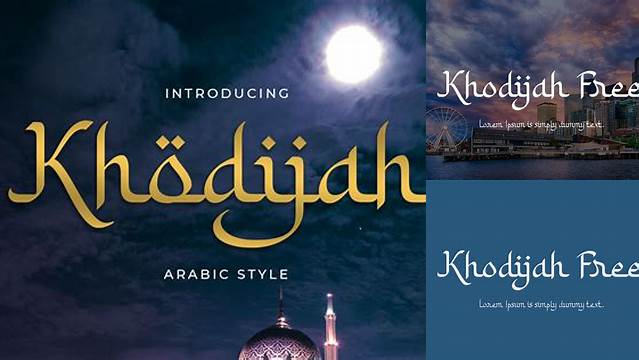
Hey guys! If you're looking for a beautiful and versatile Arabic font, you've probably stumbled upon the Khodijah Arabic Font. And the best part? You can often find a Khodijah Arabic Font free download! This comprehensive guide will walk you through everything you need to know about this elegant typeface, including where to find it, how to install it, and how to use it to create stunning designs. Let's dive in!
H2: Discovering the Allure of Khodijah Arabic Font
Khodijah Arabic Font, with its graceful curves and balanced design, is more than just a typeface; it's a work of art. It’s designed to capture the essence of Arabic calligraphy while maintaining readability in the digital age. Its popularity stems from its ability to blend tradition with modernity, making it ideal for various design projects. Khodijah Arabic Font free download options are readily available, making this beautiful font accessible to everyone, from seasoned designers to enthusiastic beginners. The font's unique character set provides a distinctive visual appeal, setting it apart from generic Arabic fonts. This makes it perfect for projects where you want to add a touch of elegance and cultural richness. The versatility of Khodijah allows it to be used in a wide range of applications, from branding and marketing materials to social media graphics and personal projects. Its adaptability makes it an excellent choice for those looking to enhance the visual impact of their work. Consider the impact a well-chosen font can have; it immediately sets a tone and conveys a message. Khodijah Arabic Font is not just functional, it tells a story through its form. Many designers choose it specifically to connect with audiences that appreciate the beauty of Arabic script. Finding a Khodijah Arabic Font free download is simple; it is a fantastic way to add a layer of sophistication to your design endeavors. It’s all about the details, and this font offers plenty of them. Embrace the beauty and consider adding this amazing font to your creative toolkit. This font can become a staple in your library due to its artistic flair. In addition to its aesthetic appeal, the font has great functional qualities. Its legibility and the various weights and styles available enhance the overall user experience. It’s an investment in your designs, helping them stand out and become more memorable. It’s the perfect solution for both professional and personal projects, giving you a touch of class whenever you need it. You'll find yourself drawn to this font’s timeless design, which is certain to impress anyone who encounters it.
H2: Utilizing Khodijah Arabic Font in Your Design Projects
Once you've got your Khodijah Arabic Font free download and installed it, the real fun begins – using it! This font is incredibly versatile, lending itself well to a variety of design projects. It is perfect for branding and logo design. The graceful curves and unique character shapes make it ideal for creating a memorable brand identity. Use it for headlines and titles in your marketing materials. The font's elegance will draw the reader's eye and create a lasting impression. Employ it for social media graphics, adding a touch of cultural richness to your posts. Create beautiful invitations and greeting cards with this font. It is perfect for weddings, Eid celebrations, or any event where a touch of beauty is needed. Experiment with different weights and styles to achieve the desired effect. The font often comes in various weights (light, regular, bold) and sometimes with additional styles. Use the different versions of the font according to your specific design needs. Combine it with other fonts to add variety. You can pair the Arabic font with a complementary sans-serif or serif font for body text. Always consider the context of your design and the message you want to convey. Khodijah Arabic Font is a beautiful choice, but its use will depend on what you want to express. Ensure the font is legible at various sizes. Test the font in different sizes to ensure it remains clear and readable, especially for smaller text. Avoid overuse. While the font is beautiful, using it sparingly can make it more impactful. The font is not just visually appealing; it’s also a great way to honor Arabic culture and create a sense of connection with your audience. Make your design projects stand out from the crowd! The font will add a touch of elegance and sophistication to your projects. Now you are ready to create visually stunning pieces!
H2: Enhancing Readability: Best Practices for Khodijah Arabic Font
While Khodijah Arabic Font is visually stunning, ensuring readability is key to effective design. When using the font, pay attention to the font size, as the legibility of any font will vary depending on the size. For headlines, you can use larger sizes, but for body text, ensure the size is comfortable for the reader. Space is extremely important for readability. Adjust the line spacing (leading) and letter spacing (tracking) to provide a comfortable reading experience. In general, Arabic fonts may require slightly more spacing compared to Latin fonts. Consider the background of your text and the contrast of the text with the background. High contrast is important. For instance, using white text on a dark background or vice versa. Experiment with the font's weights and styles to find the right balance between elegance and readability. Avoid using extremely bold weights for body text, as they can reduce readability. Ensure that the font is legible in different contexts, such as on a website or in print. Test your designs across different devices and platforms to verify legibility. Keep the character count per line in mind. Shorter lines are usually easier to read than longer ones. Use the font in a way that supports the overall design concept. It must be consistent with your brand’s design guidelines. Pay attention to the context of your design; if it's for a formal event, you can use a more decorative style. For everyday use, a cleaner and more legible style is usually more effective. Choose the right font size for the context of your design. The ideal font size depends on the use case. Maintain the consistency of the font usage throughout your designs. If used for a logo, use the same font for the headlines and other elements of your design. By following these best practices, you can be sure that your designs will be visually appealing. Now you can showcase this beautiful font, making it accessible to everyone who views it.
H2: Exploring Variations: Khodijah Arabic Font Styles and Weights
When you download Khodijah Arabic Font free, you'll often find several variations. Understanding these variations will greatly enhance your design capabilities. The most common variations are the different weights. You might find the font in a light weight for delicate designs, a regular weight for body text, and a bold weight for emphasis. Some may even include a black weight for impactful headlines. Some font packages include multiple styles such as italic or outlined versions, but this is less common in Arabic fonts. Pay attention to these styles; they can be used to add variety to your designs. Consider each weight and style in your project. Different weights have different uses, so think about the effect you want to achieve. The light weight is great for subtle details, regular for body text, and bold for headlines. Bold is excellent for drawing attention to key elements. By playing with these styles, you can easily add a sense of depth to your designs. Ensure that you explore all the styles available to you. Experiment with combining different weights to create visual interest. Using a bold headline and a regular body text is a great example of how to use variations effectively. Be aware of the context of the design. Using the right weight or style depends on the message you want to convey. It's important to consider the impact on the overall design. With a good understanding of the different variations available, you can create a truly impactful design. By experimenting with these styles, you will be able to make your designs even more compelling and aesthetically pleasing. This is a great way to showcase the beauty of the font in your projects.
H2: Conclusion: Embracing the Elegance of Khodijah Arabic Font